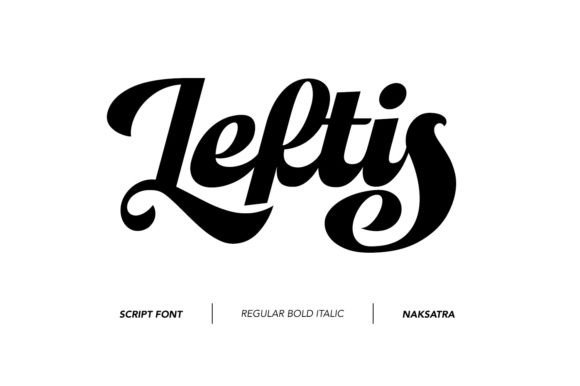
Journey into the Realm of Leftis: A Script Symphony for Unparalleled Visual Delights
In the vast digital landscape, where artistic expression knows no bounds, allow us to introduce you to Leftis, a font family that captivates and inspires with its enchanting charm. Nurtured by the creative minds at Naksatra Type, Leftis is not merely a collection of letters; it's an orchestra of visual artistry, ready to elevate your designs to breathtaking heights.
Immerse yourself in the symphony of styles that Leftis offers. With its alluring thin, bold, and italic typefaces, this font family conducts a harmonious dance of contrasts, adding depth and dimension to your words. Experience the magic of textual ligature, where characters gracefully intertwine, creating an elegant tapestry of visual intrigue.
As a multilingual maestro, Leftis transcends linguistic boundaries, seamlessly adapting to diverse languages, ensuring your message resonates across cultures. Unleash your creativity, knowing that Leftis will effortlessly accommodate your global ambitions.
Embark on a typographic adventure with Leftis, where every letter becomes a brushstroke, painting vibrant pictures in the minds of your audience. Its stylistic alternate glyphs are like hidden gems, waiting to be discovered, adding a touch of individuality and flair to your designs.
If you seek a font family that ignites imagination, captivates hearts, and leaves an indelible mark on your audience, then Leftis is your muse. Its exquisite curves and elegant lines are the perfect companions for crafting captivating logos, mesmerizing posters, enchanting invitations, and captivating social media posts.